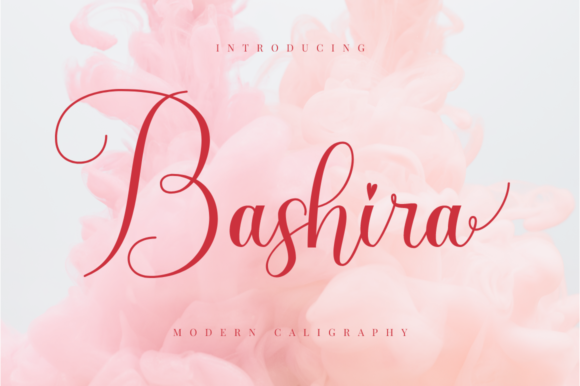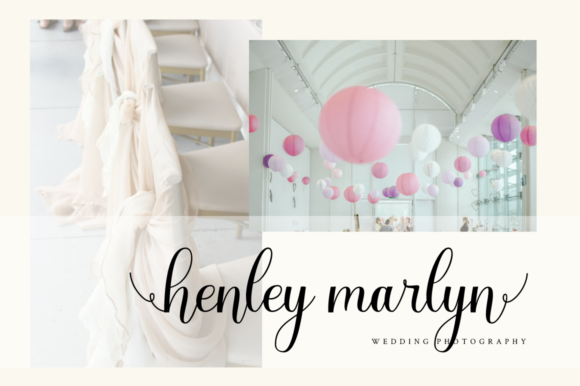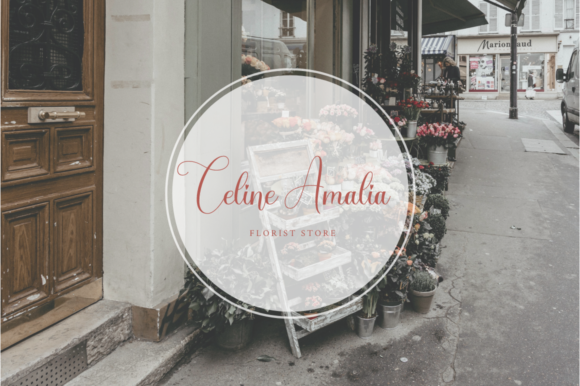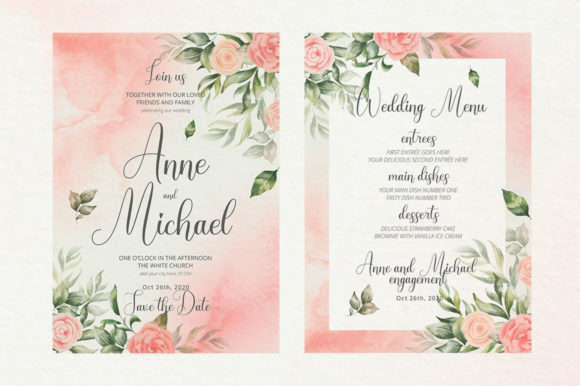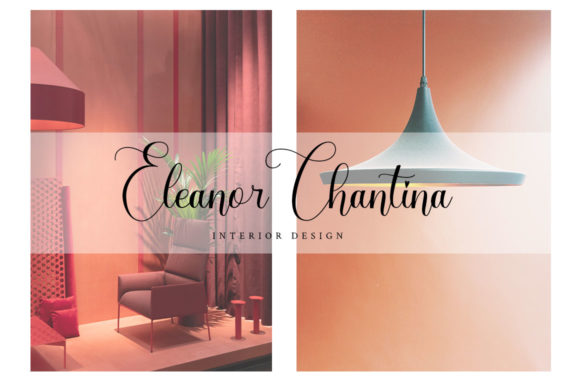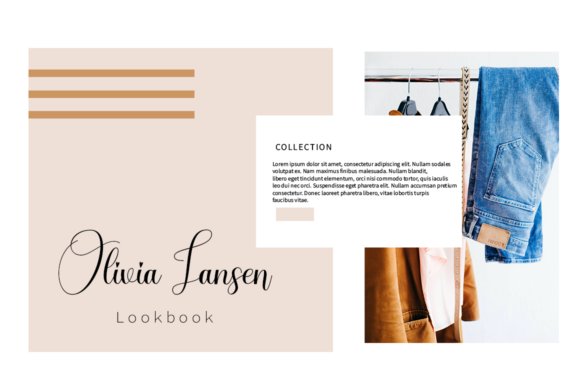
Bashira Font
About Bashira Font
Bashira is an elegant and flowing handwritten font. It maintains its classy calligraphic influences while feeling contemporary and fresh. It is PUA encoded which means you can access all of the glyphs and swashes with ease!